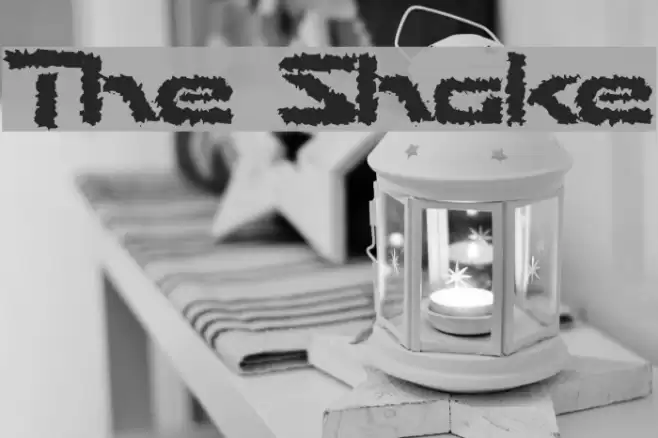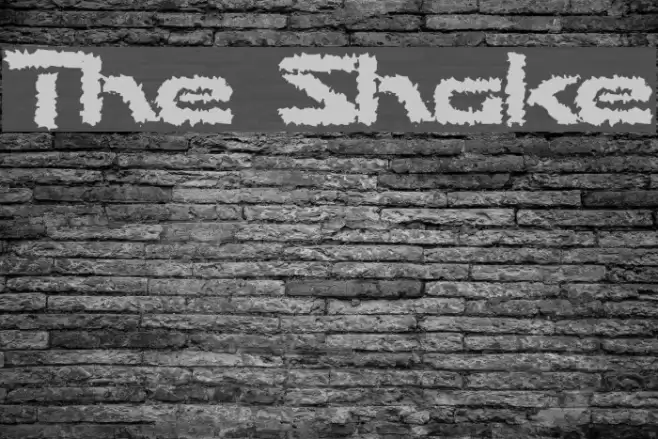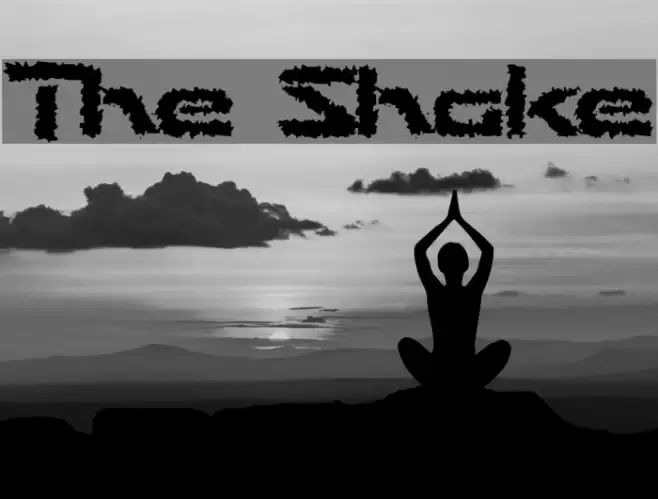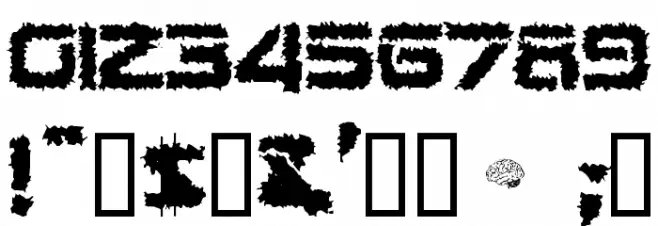
The Shakes Font
The Shakes Description
This font features a highly distinctive and jagged design, reminiscent of torn paper or rough edges. Each character is crafted with a unique, irregular outline that gives it a dynamic and energetic appearance. The uppercase and lowercase letters maintain a consistent style, with sharp angles and a bold presence. Numbers and special characters follow the same aesthetic, ensuring uniformity across all glyphs. This font's unconventional style makes it stand out, offering a visually striking option for creative projects.
A jagged, bold font with irregular outlines and a dynamic appearance from Decorative fonts.
- Proposed Projects: Ideal for horror-themed designs, edgy posters, album covers, or any project requiring a bold, unconventional typeface.